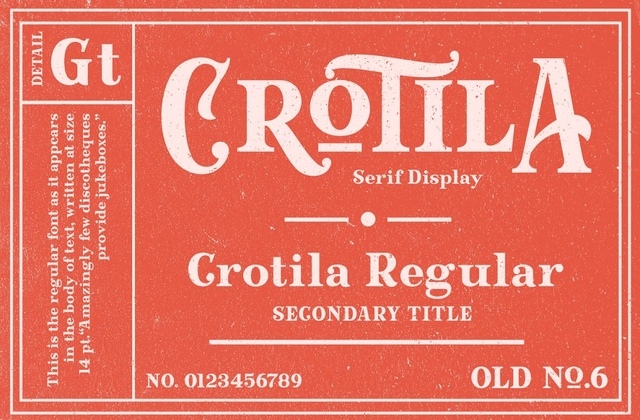
Crotila - Serif Display Font
Crotila - Serif Display Font is perfect for various design applications including luxury magazine headlines, sophisticated editorial layouts, premium brand identities, high-end fashion campaigns, elegant book covers, refined cultural institution materials, distinguished corporate communications, upscale restaurant menus, prestigious event invitations, and sophisticated publishing projects. This commanding typeface excels in projects requiring editorial authority and luxury sophistication that captures the refined elegance of premium publishing and sophisticated communication design.
What makes Crotila - Serif Display Font so exciting is its masterful embodiment of editorial sophistication and luxury authority through letterforms that suggest the refined elegance of premium publishing and the commanding presence of sophisticated design. The font features distinctive serif construction with contemporary refinements, bold proportions that create powerful visual hierarchy and commanding presence, and meticulously crafted character details that reflect the precision and attention to detail that defines luxury editorial design. Its distinctive display character and sophisticated appeal make it perfect for premium brands seeking to communicate authority, sophistication, and the kind of editorial excellence that commands attention and respect.
Crotila - Serif Display Font family includes multiple sophisticated weights and editorial variations that enhance its versatility for different luxury applications. Each style maintains the font's signature display character while providing options for various sophisticated design approaches. The family also features premium decorative elements, editorial flourishes, and luxury ornaments that can be combined with the letterforms to create cohesive high-end editorial design systems.
Whether you're developing luxury brands, editorial publications, or sophisticated communications, Crotila - Serif Display Font Free Download provides commanding typography that establishes immediate editorial authority and celebrates the refined artistry of premium design and sophisticated publishing. This typeface transforms ordinary communications into distinguished statements that reflect editorial excellence and luxury sophistication. The font's premium appeal makes it particularly effective for luxury fashion brands, sophisticated publishers, and high-end service providers targeting discerning audiences who appreciate editorial authority and design sophistication.
Crotila - Serif Display Font stands out by delivering authentic editorial sophistication that feels genuinely premium rather than artificially luxury or superficially elegant. Its carefully crafted display proportions and sophisticated details ensure that designs feel authentically connected to luxury editorial traditions while maintaining contemporary relevance and appeal. From luxury brand communications to sophisticated editorial projects, this font provides designers with tools to create communications that celebrate editorial excellence and inspire appreciation for sophisticated design through commanding, premium-inspired serif typography that defines luxury communication standards.